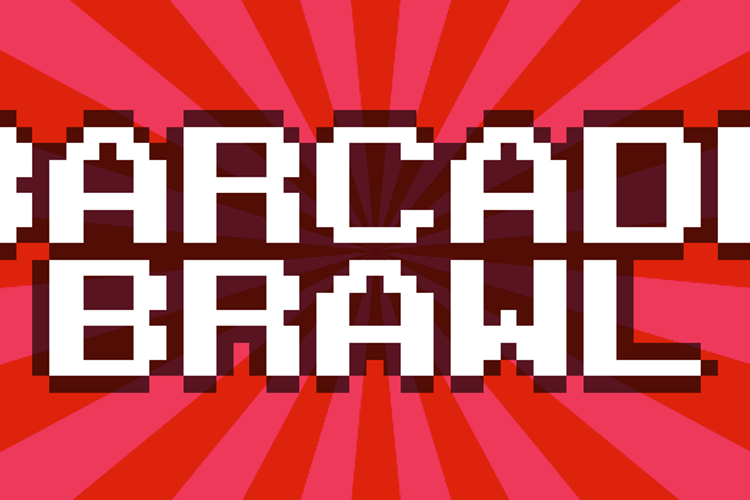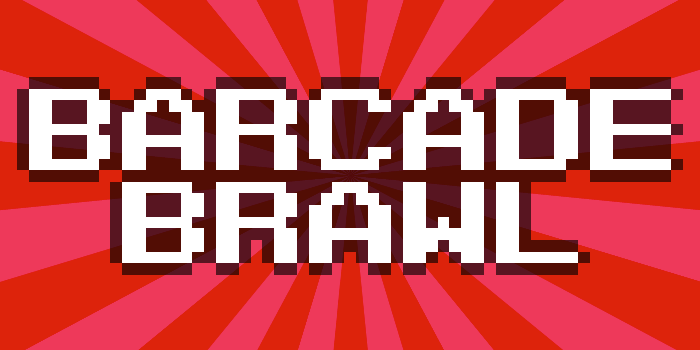
Barcade Brawl Font
About Barcade Brawl Font
Original size: 5.25pt (use multiples of this size for pixel perfection)
Font from "Barcade Brawl", a 2015 game by yours truly. This was made to look similar to the system fonts from old arcade boards, PC microsystems, NES games, etc. This design puts my own spin on that style and adds support for Danish, Dutch, Finnish, French, German, Greek, Hungarian, Icelandic, Italian, Latvian, Lithuanian, Norwegian, Polish, Portuguese, Russian, Spanish, Swedish, and more!